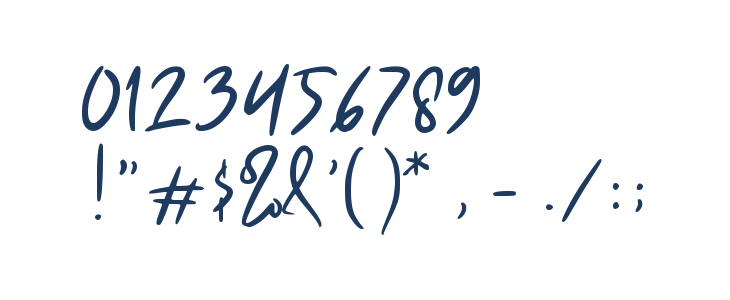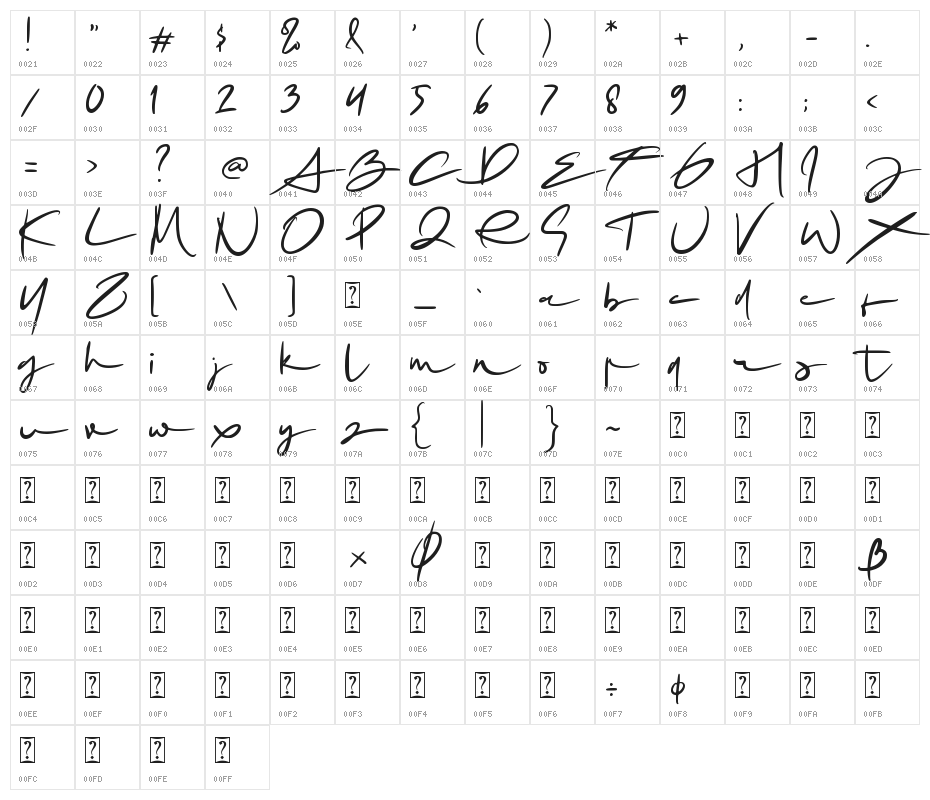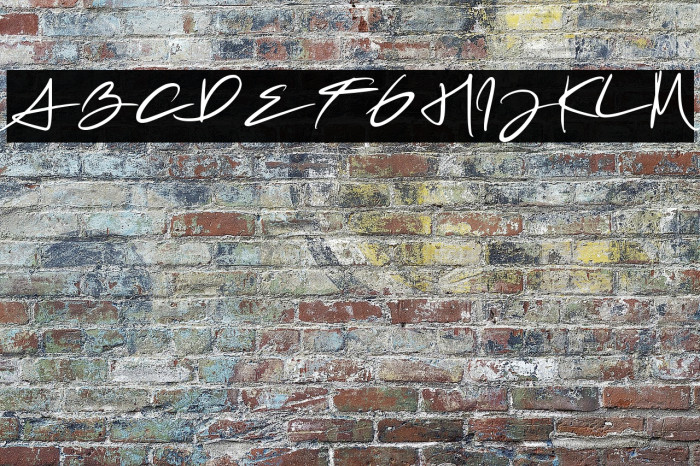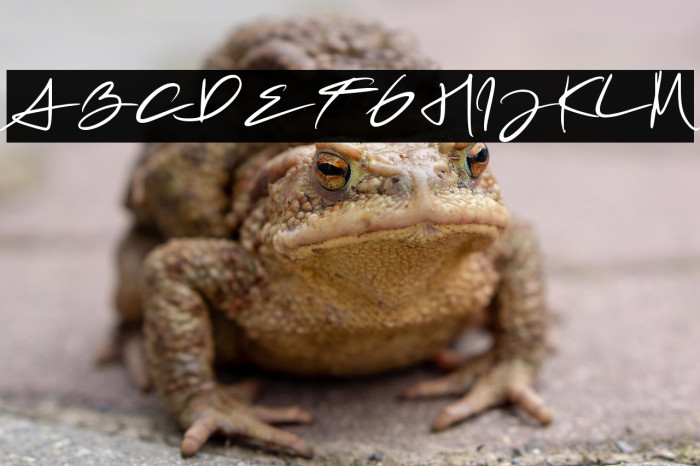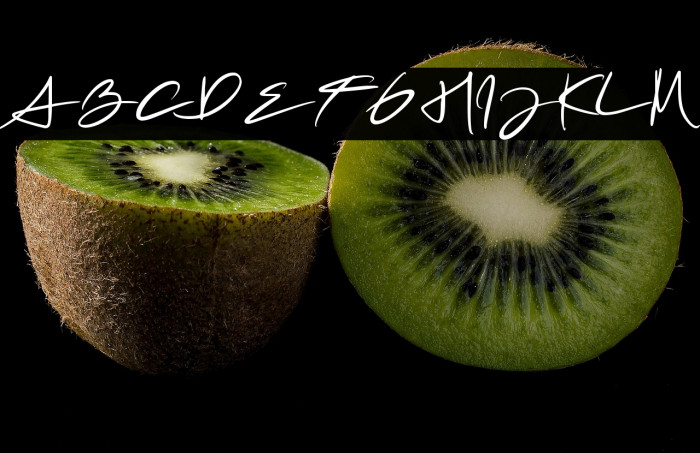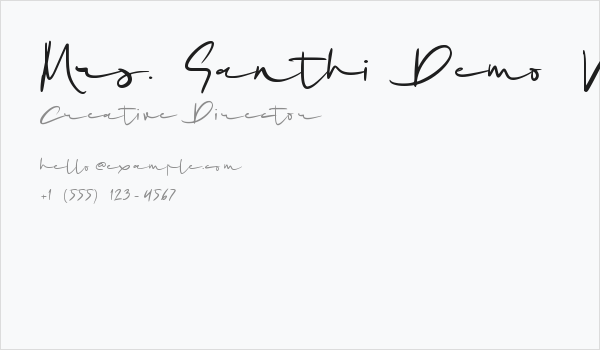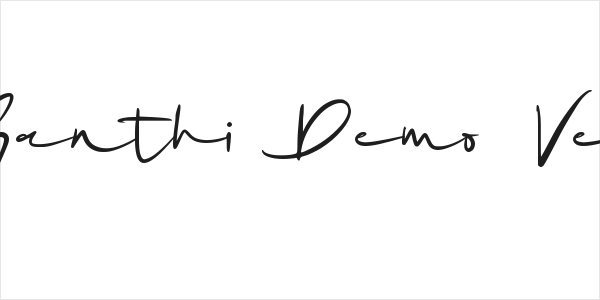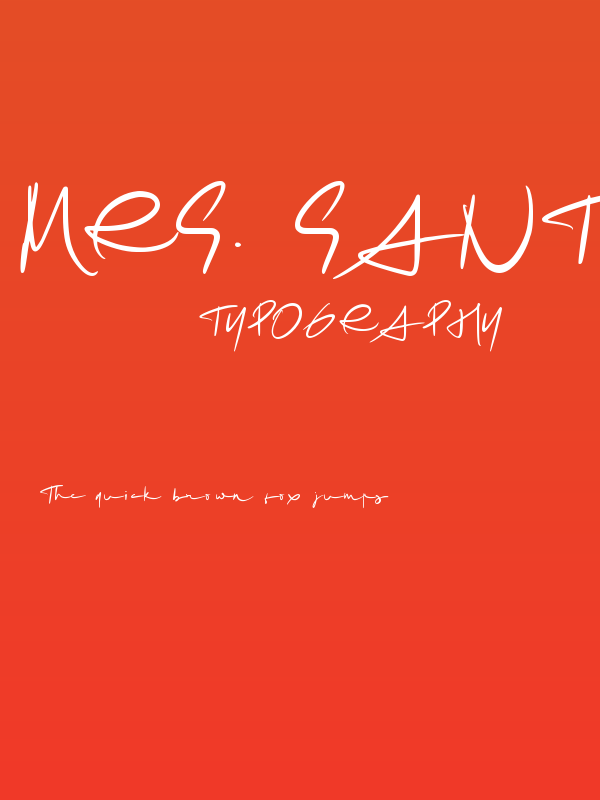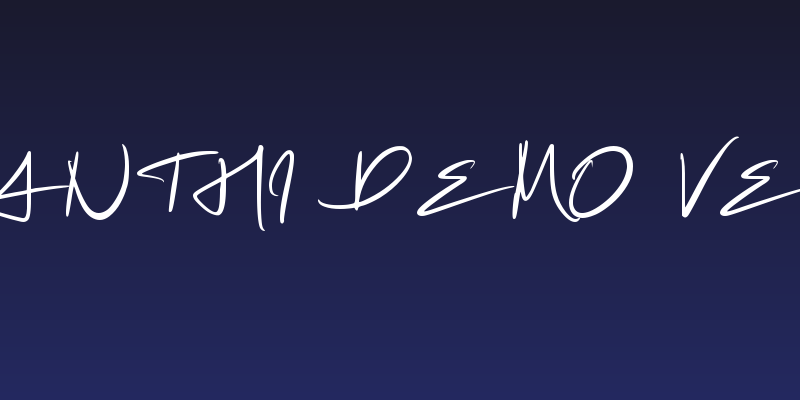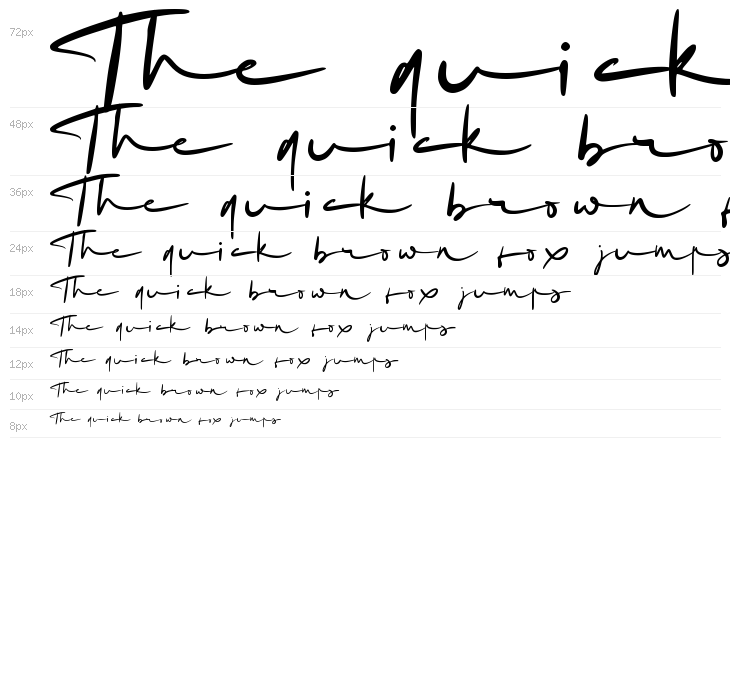
Mrs. Santhi Demo Version Font
Mrs. Santhi Demo Version Description
This font exudes a lively and expressive handwritten style, characterized by its fluid and dynamic strokes. The uppercase letters are bold and slightly slanted, giving a sense of movement and energy. The lowercase letters maintain a consistent flow, with some characters extending below the baseline, adding to its casual and informal appearance. The numerals are bold and slightly larger, ensuring readability. Special characters are integrated seamlessly, maintaining the overall aesthetic. This font is perfect for projects that require a personal touch, such as invitations, greeting cards, or artistic branding.